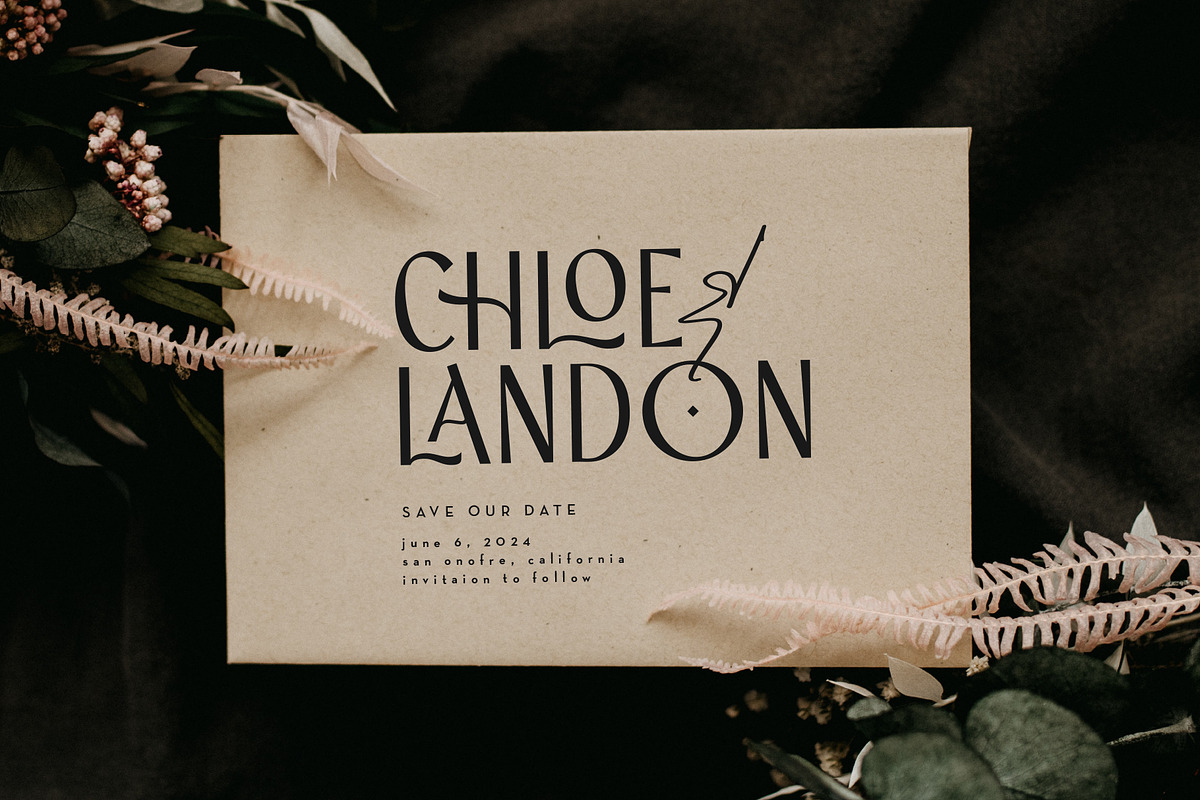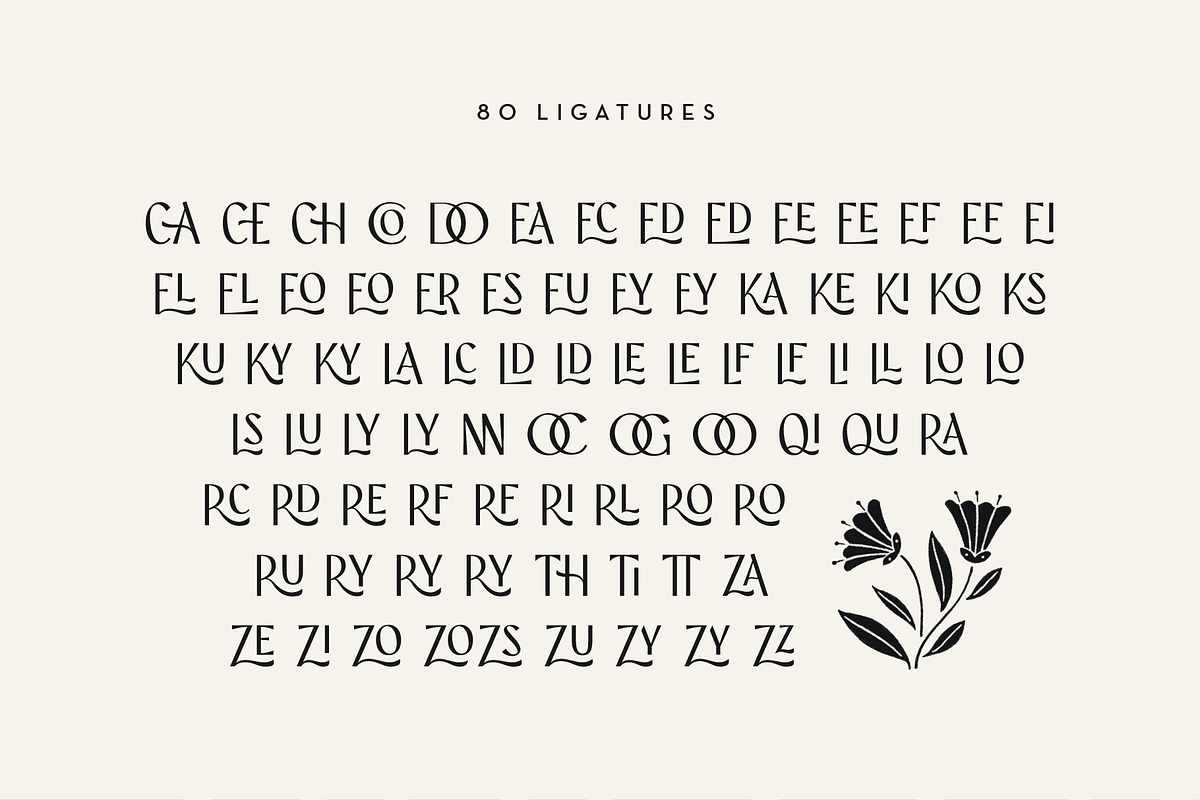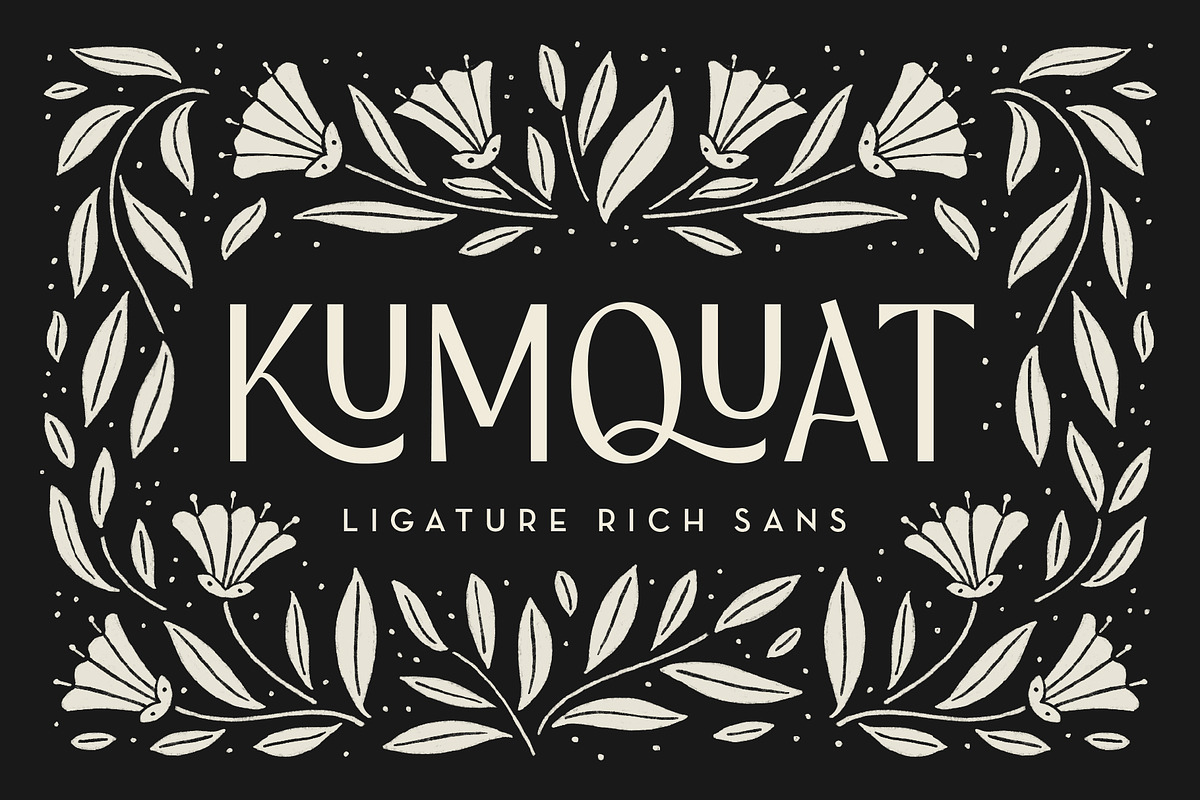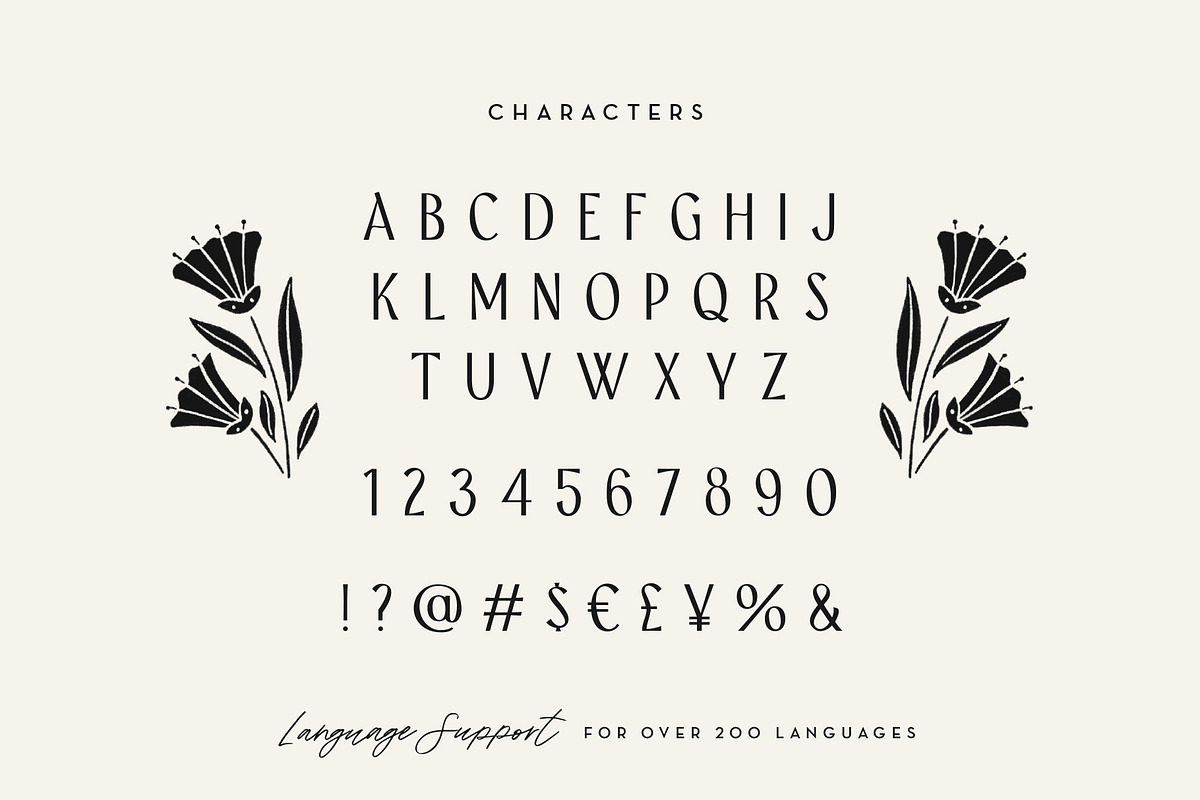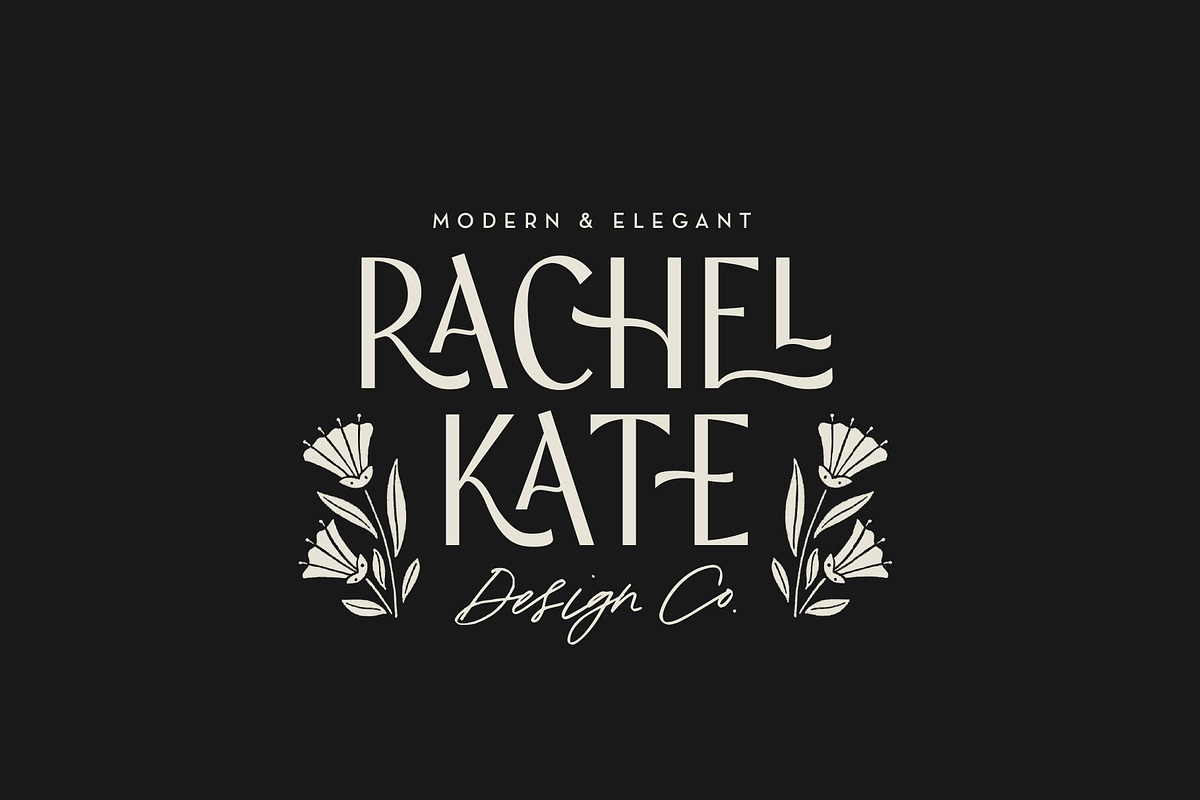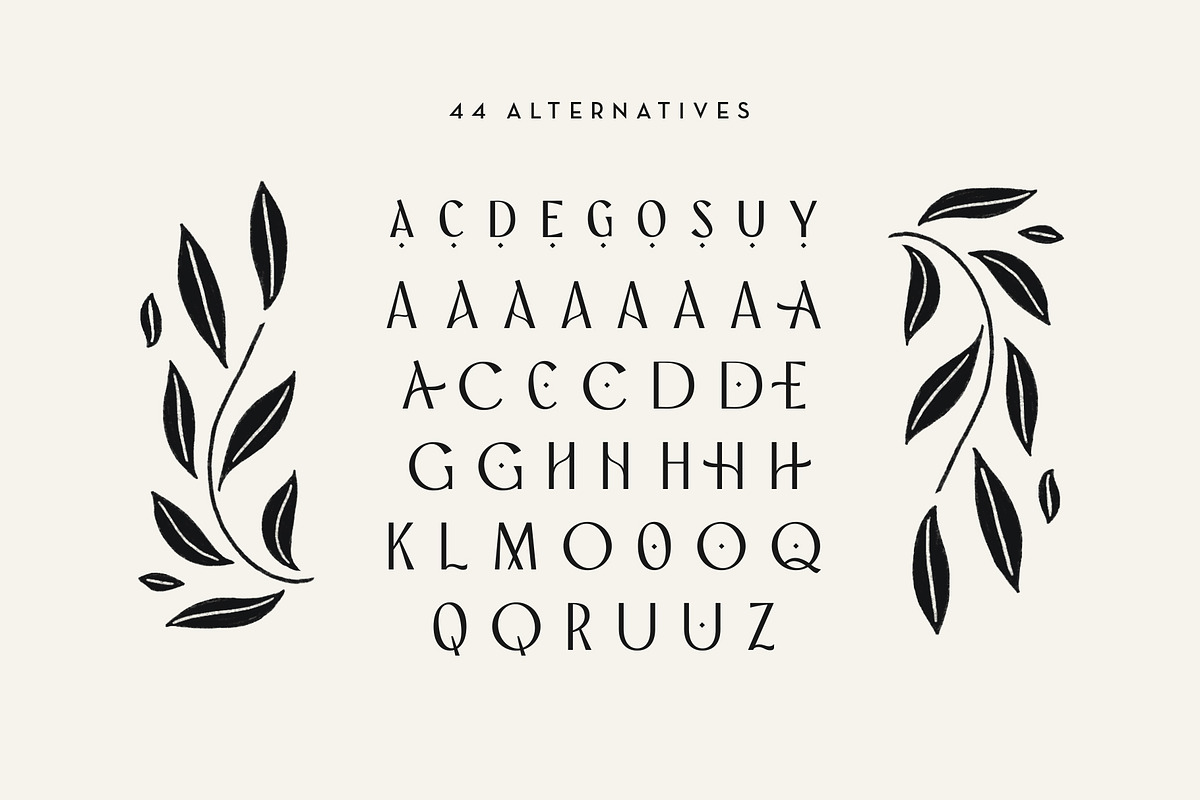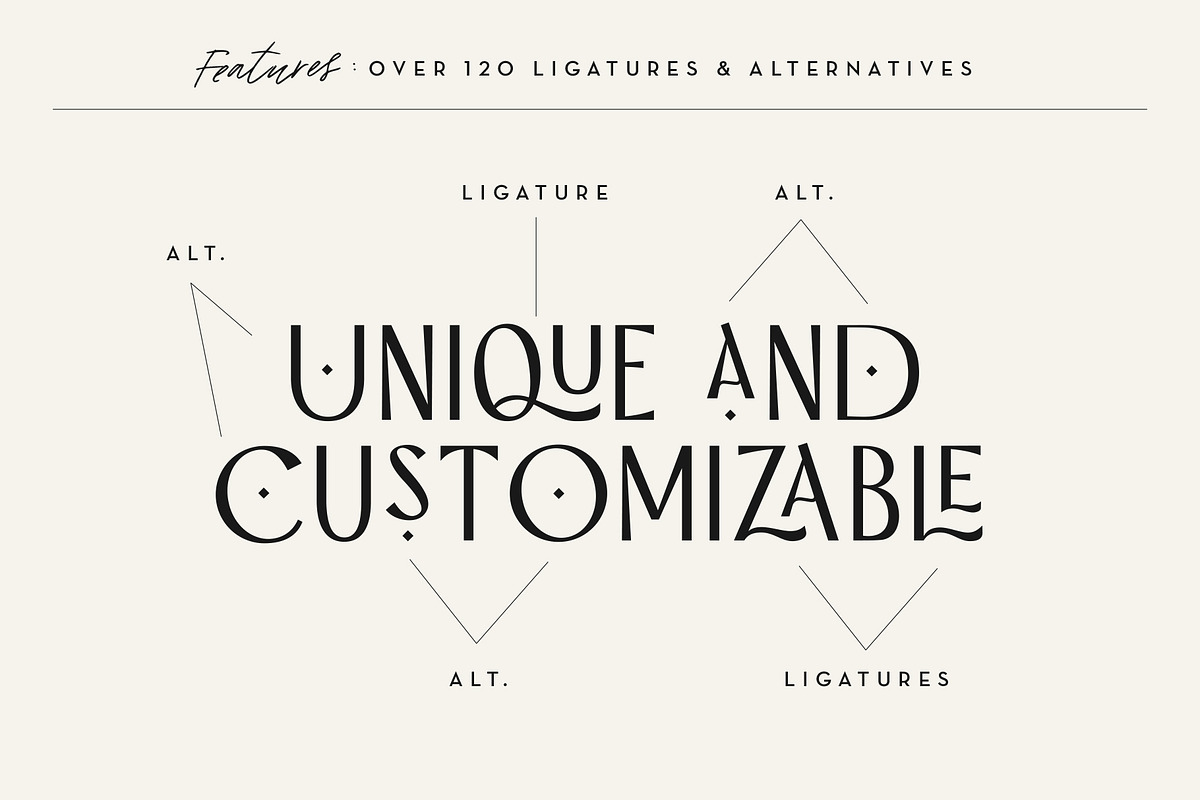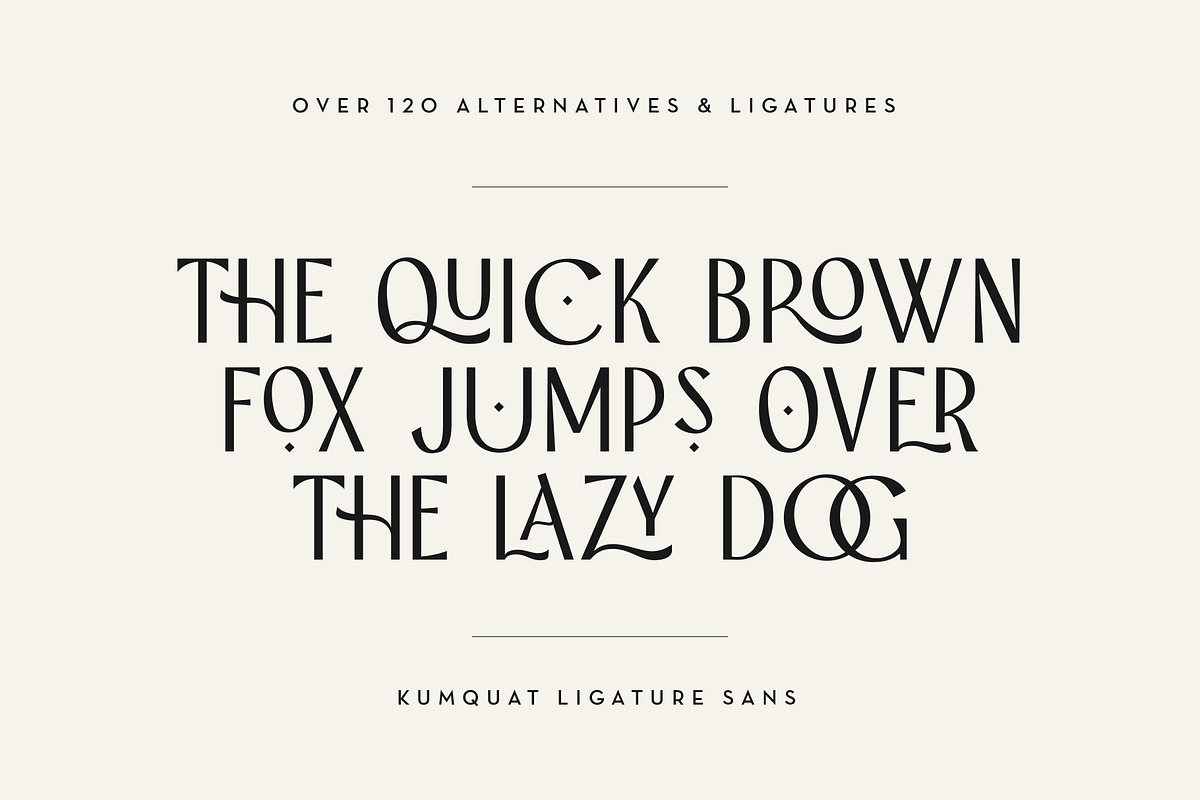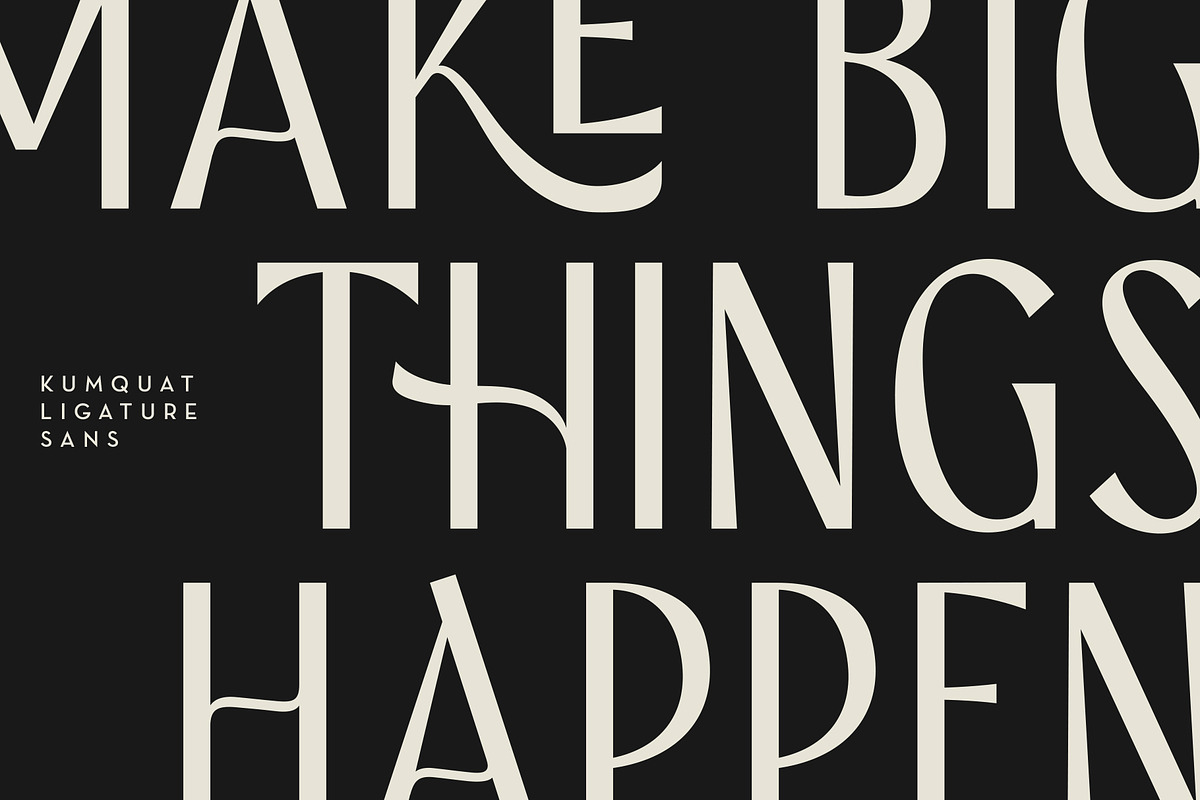
Kumquat Ligature Sans
Kumquat is an elegant, ligature rich sans display font. It has a modern and sophisticated feel while still being fun and approachable!
Kumquat is inspired by hand lettering and symmetrical floral art - incorporating many letters that fit together while still filling a designated space. With so many alternatives and ligatures, each word can be customized to fit the needs of your project.
- 351 Total Glyphs: Uppercase, Numbers, Punctuation, Language Support, Alternatives & Ligatures.
- 80 Ligatures: Make sure your open-type features are enabled to use these! You can pick and choose what ligatures depending on the style you're going for.
- 44 Alternatives: These are the perfect way to make the type look custom-made for your project. Add small details, change double letters, or add swatches that fit around surrounding letters.